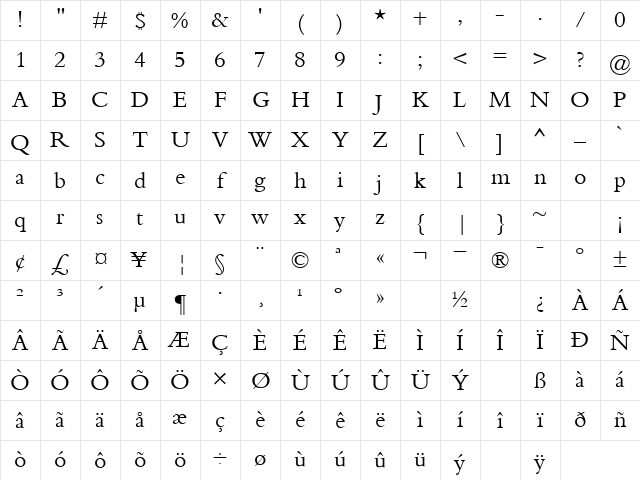
Vittate Normal
Vittate Family
Design Context for Vittate
Vittate is a composed and adaptable typeface that performs quietly and consistently across a wide range of design contexts.